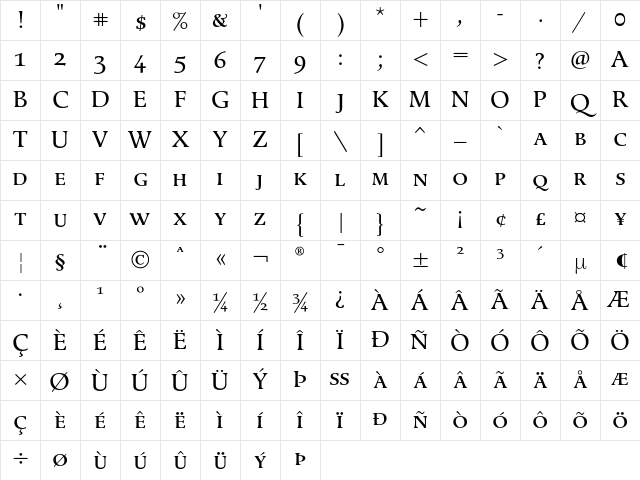
Complete Berndal LT Std SC Regular glyph index. Displaying only characters natively supported by Berndal LT Std SC Regular font.
Berndal LT Std SC is a composed and adaptable typeface that performs quietly and consistently across a wide range of design contexts. Its slender proportions lend an understated elegance to any composition.